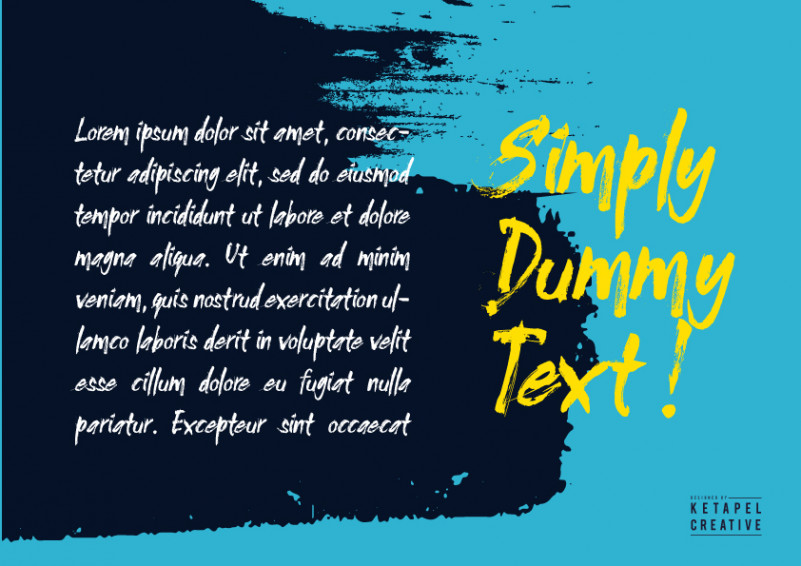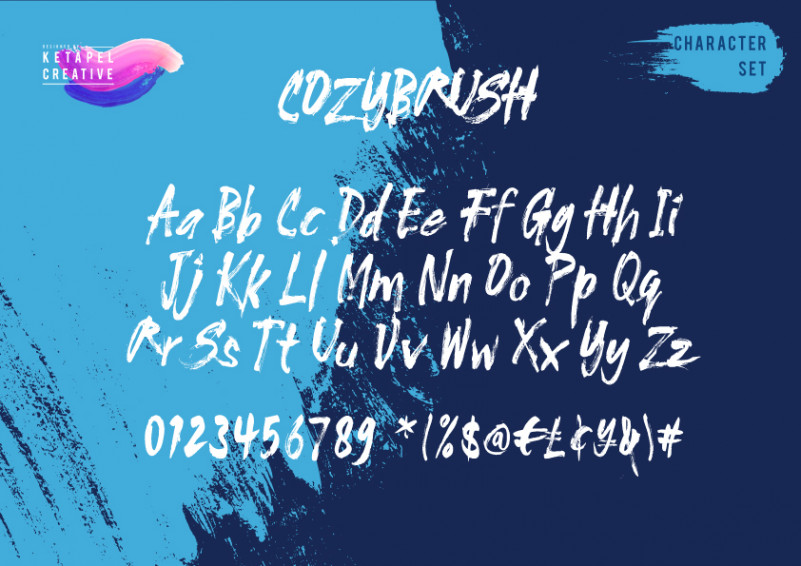
Cozybrush Font is a harsh and strong brush script with a unique feel. Get inspired by its authentic and raw energy! emotions, sharp, rough style, extra quick strokes, natural movement scratch, punchy dry marker display is made by hand.